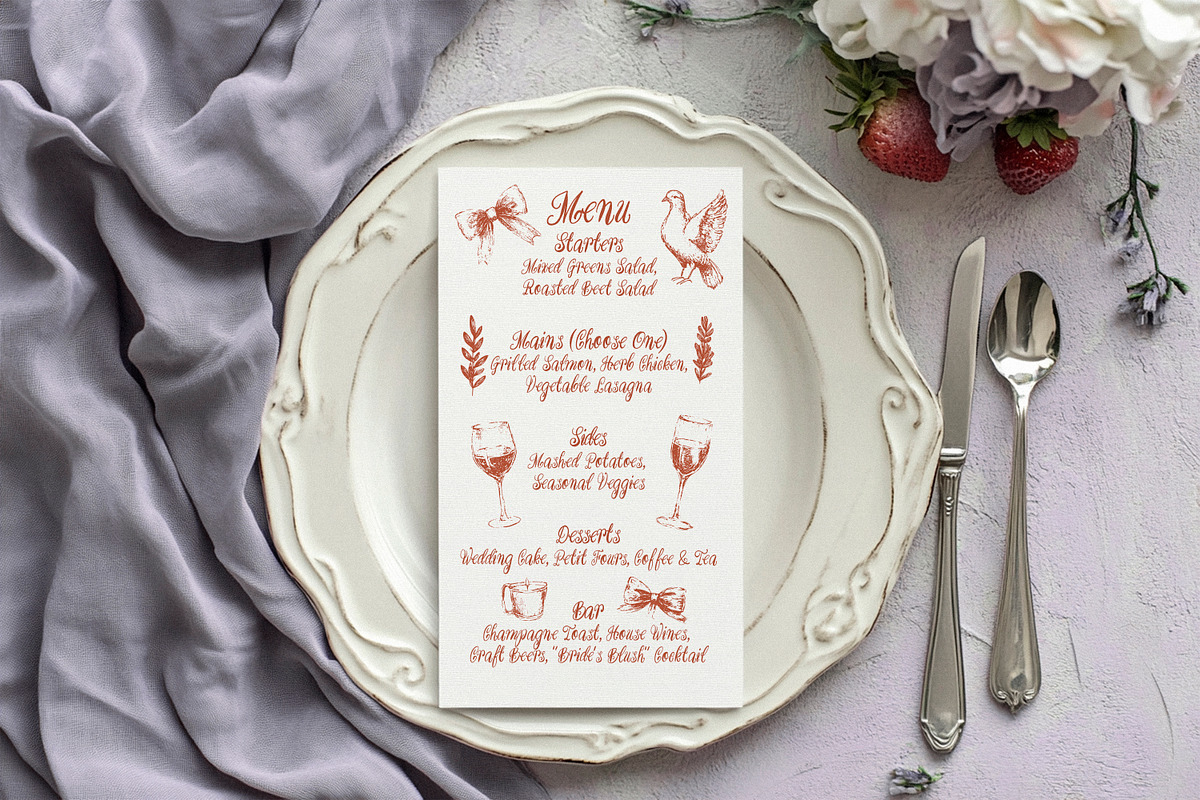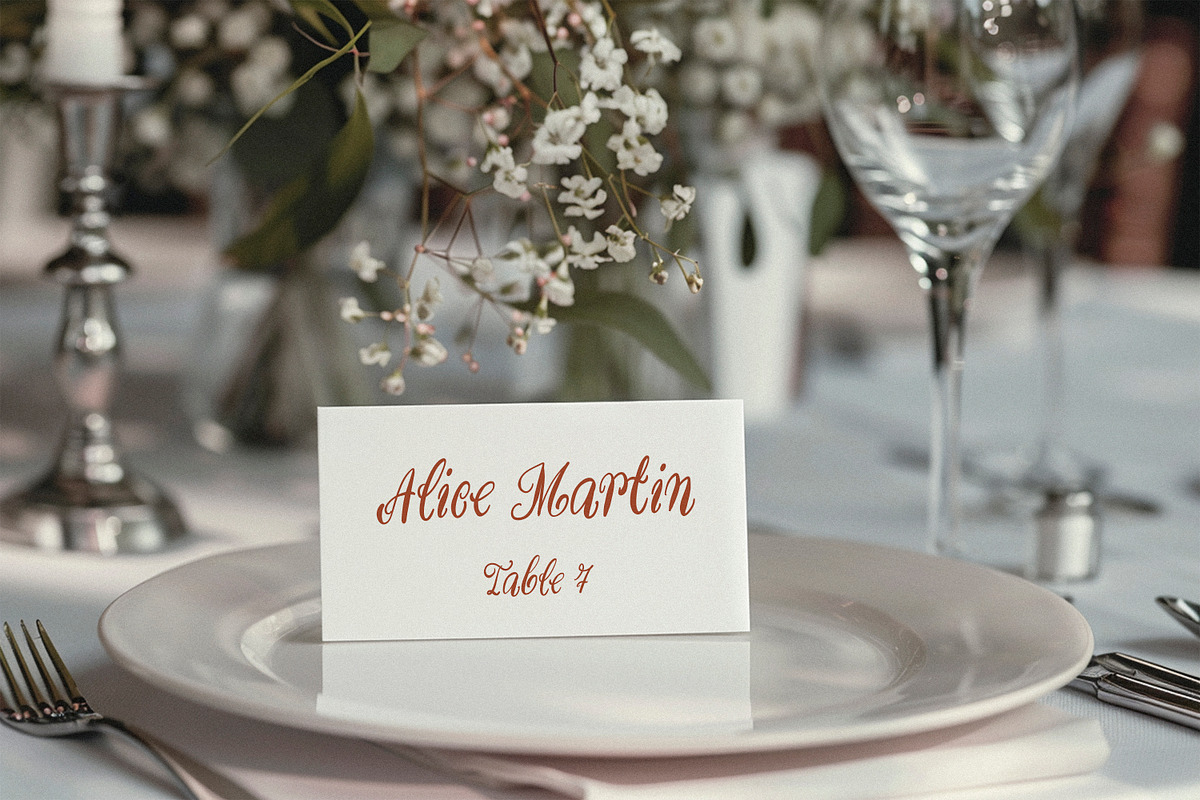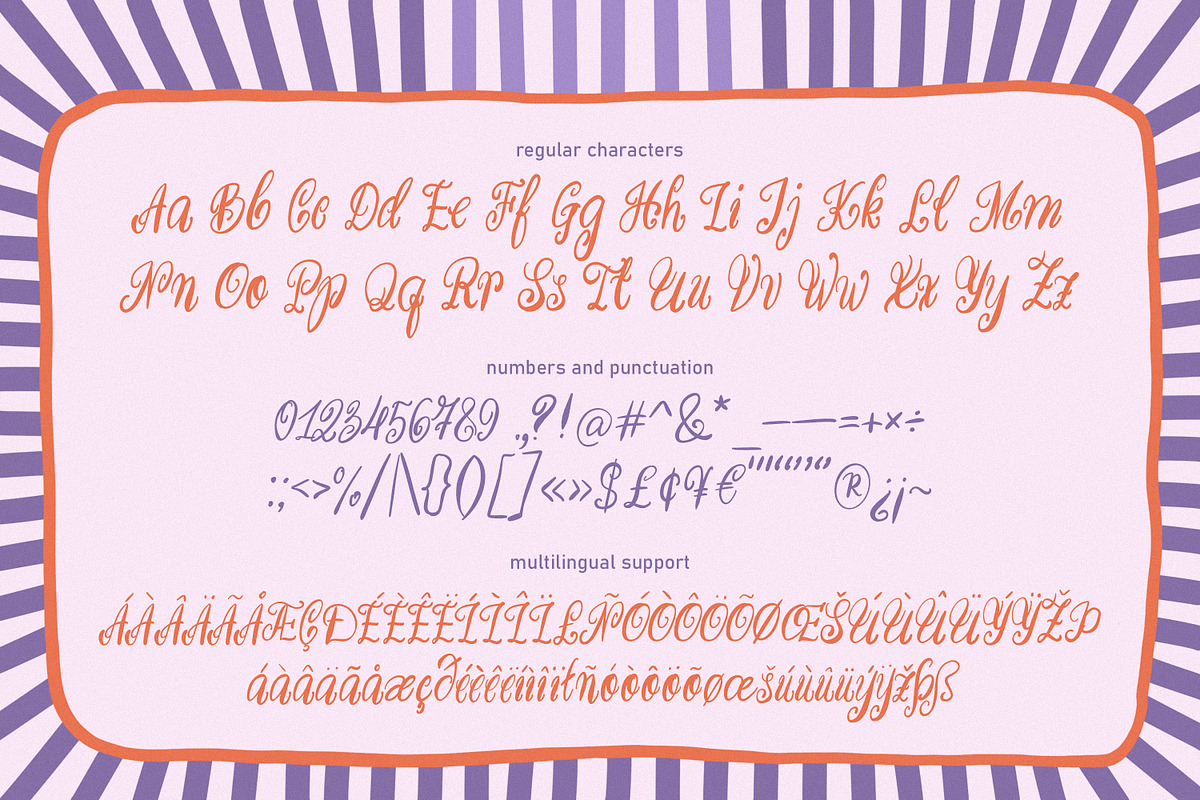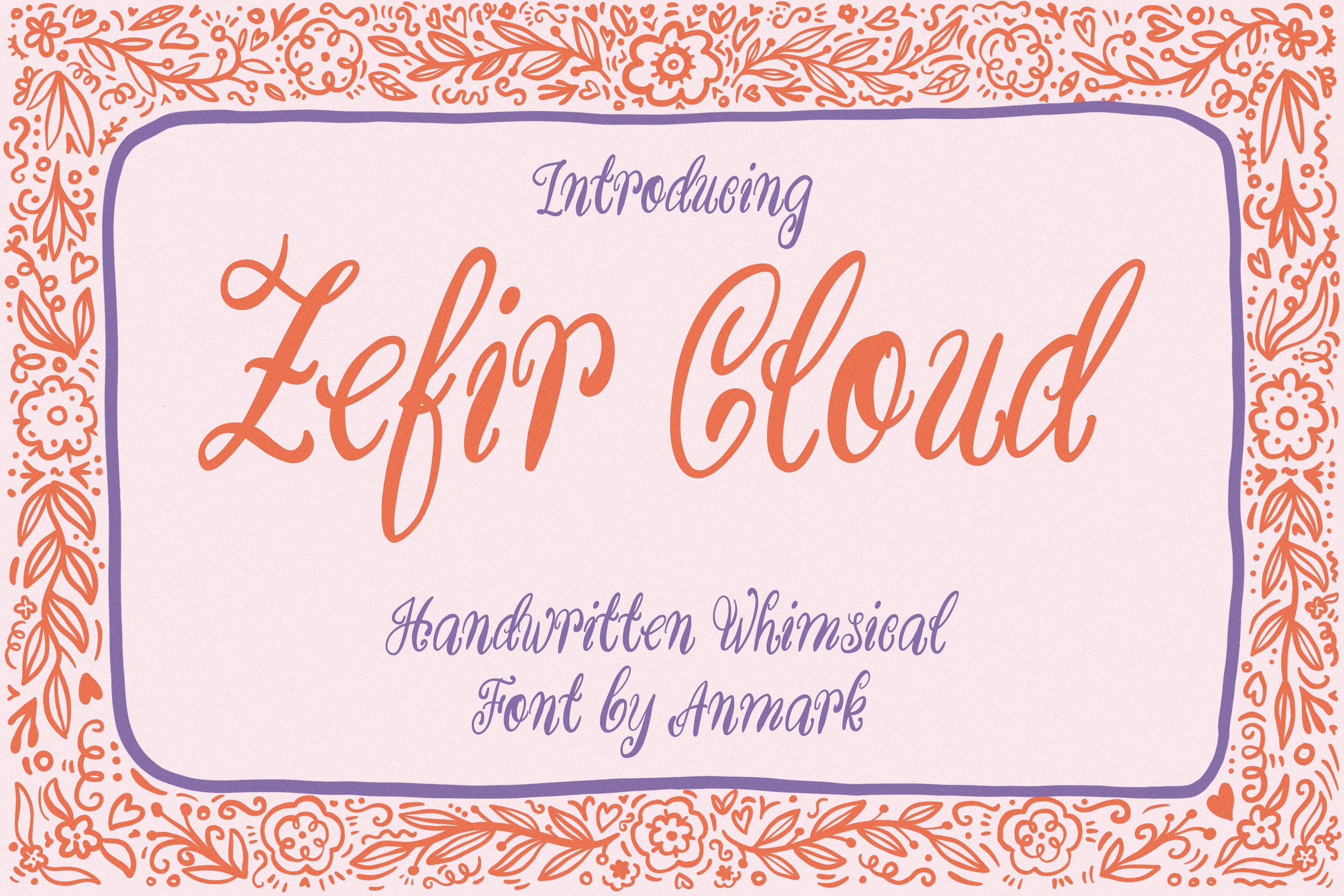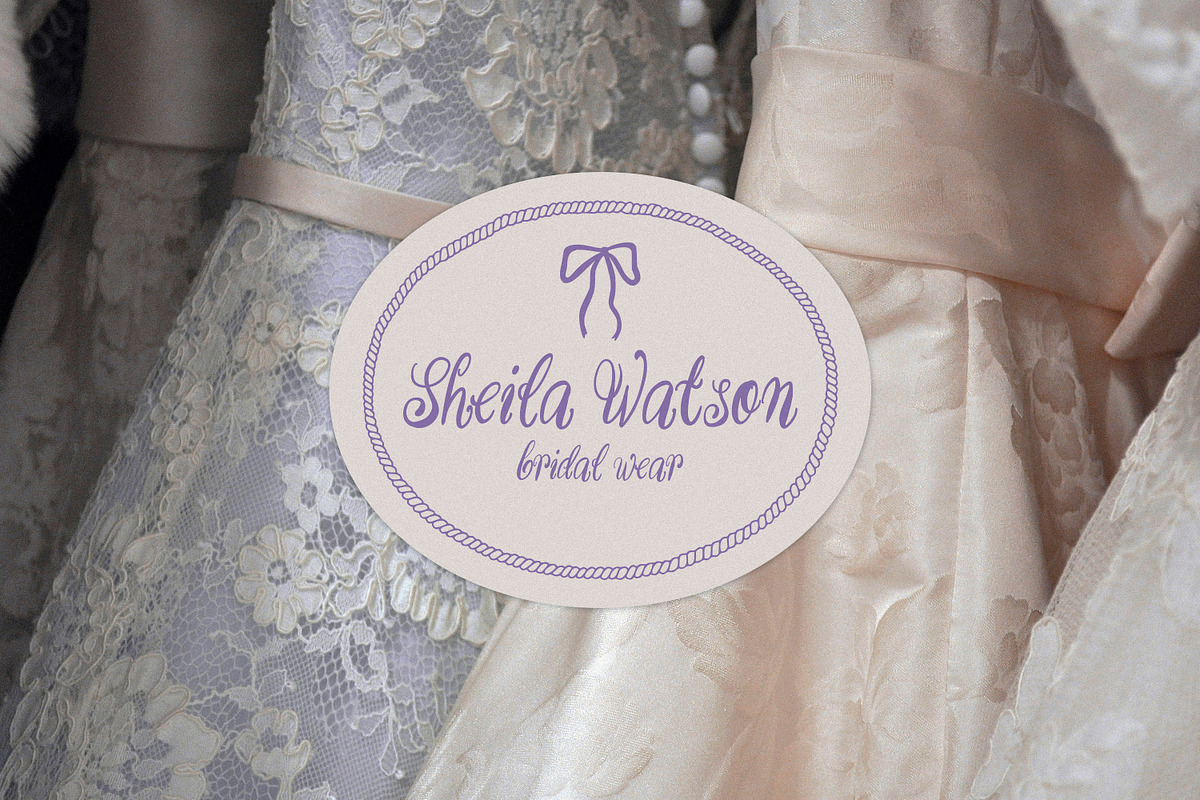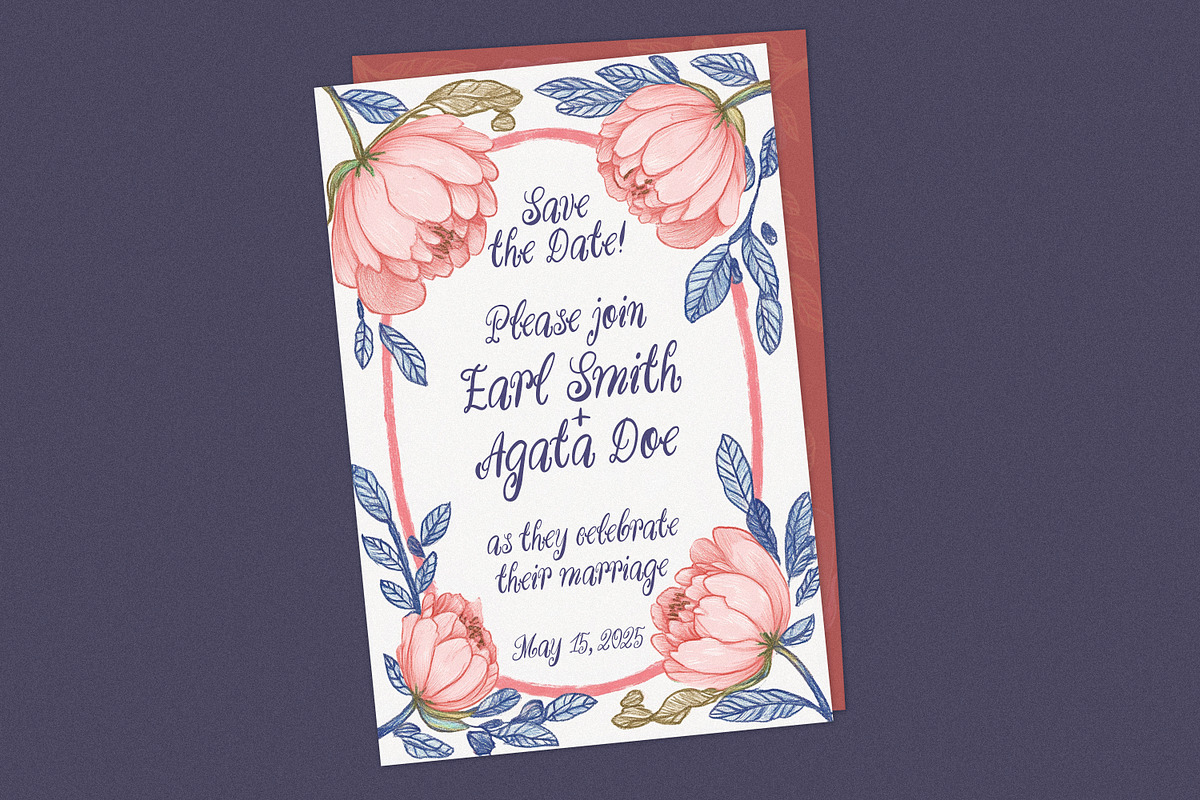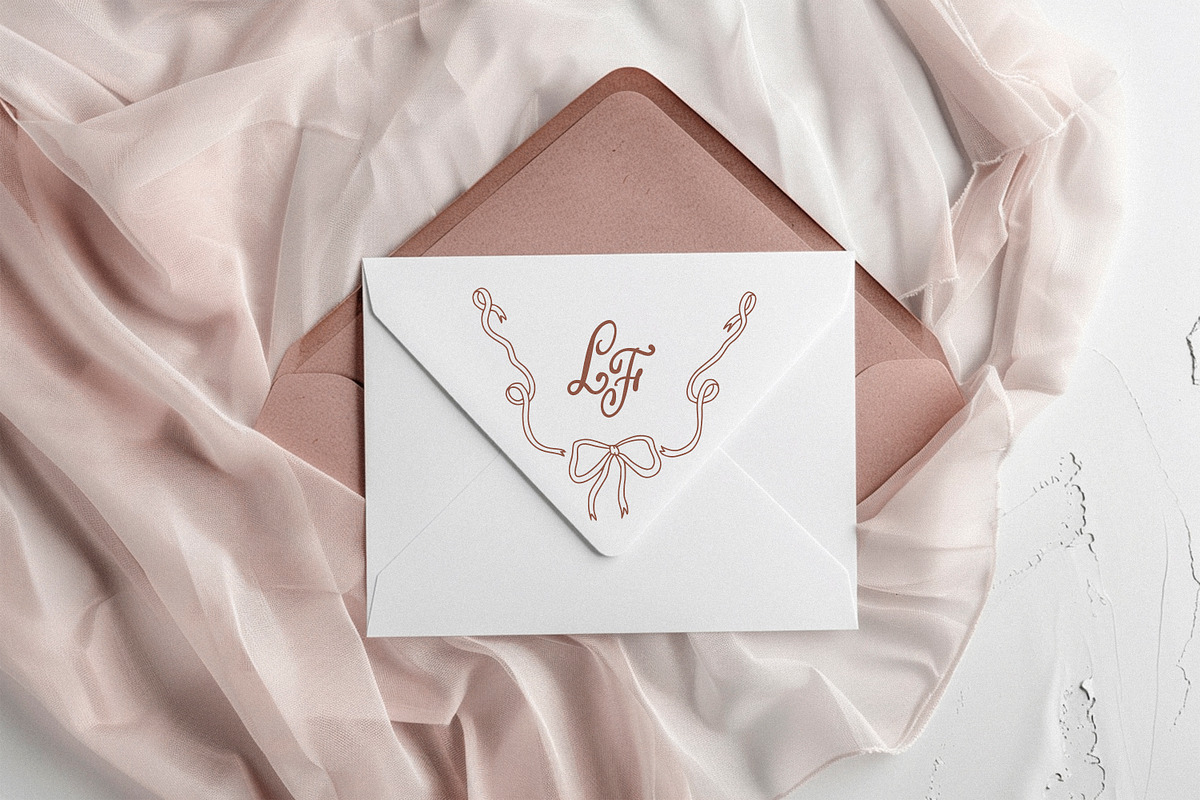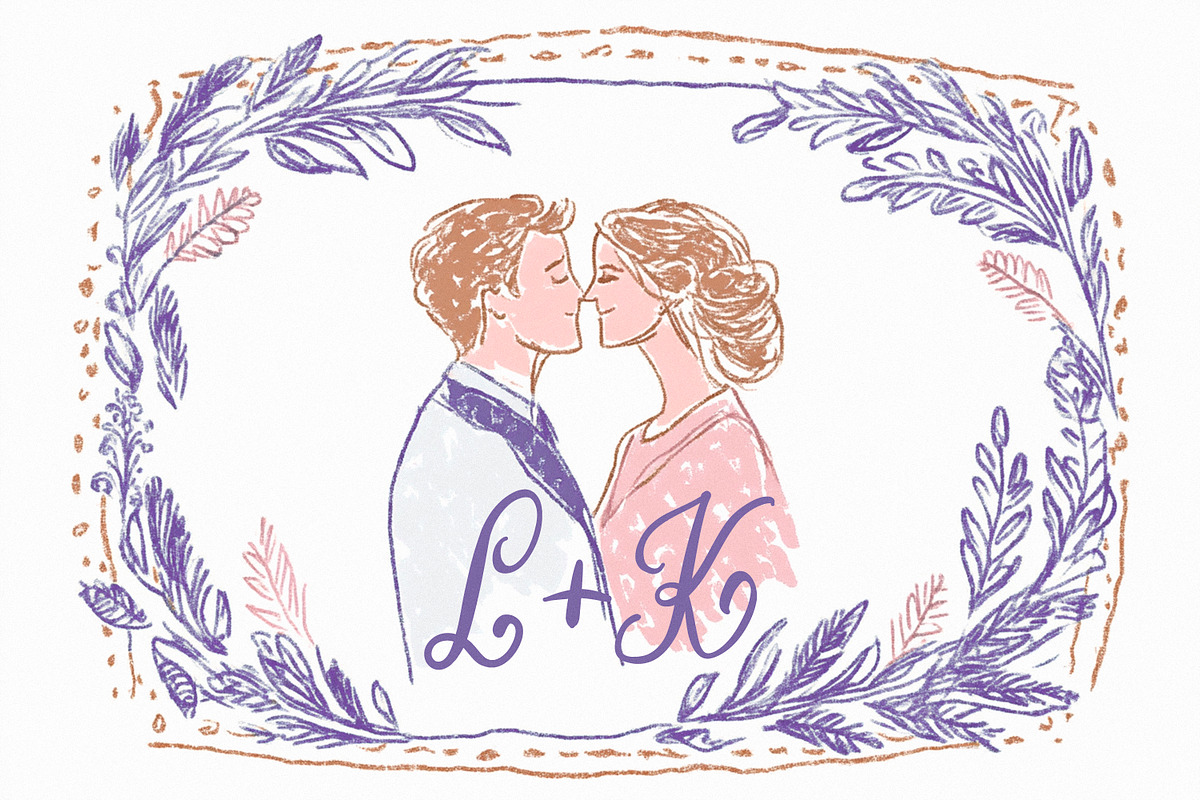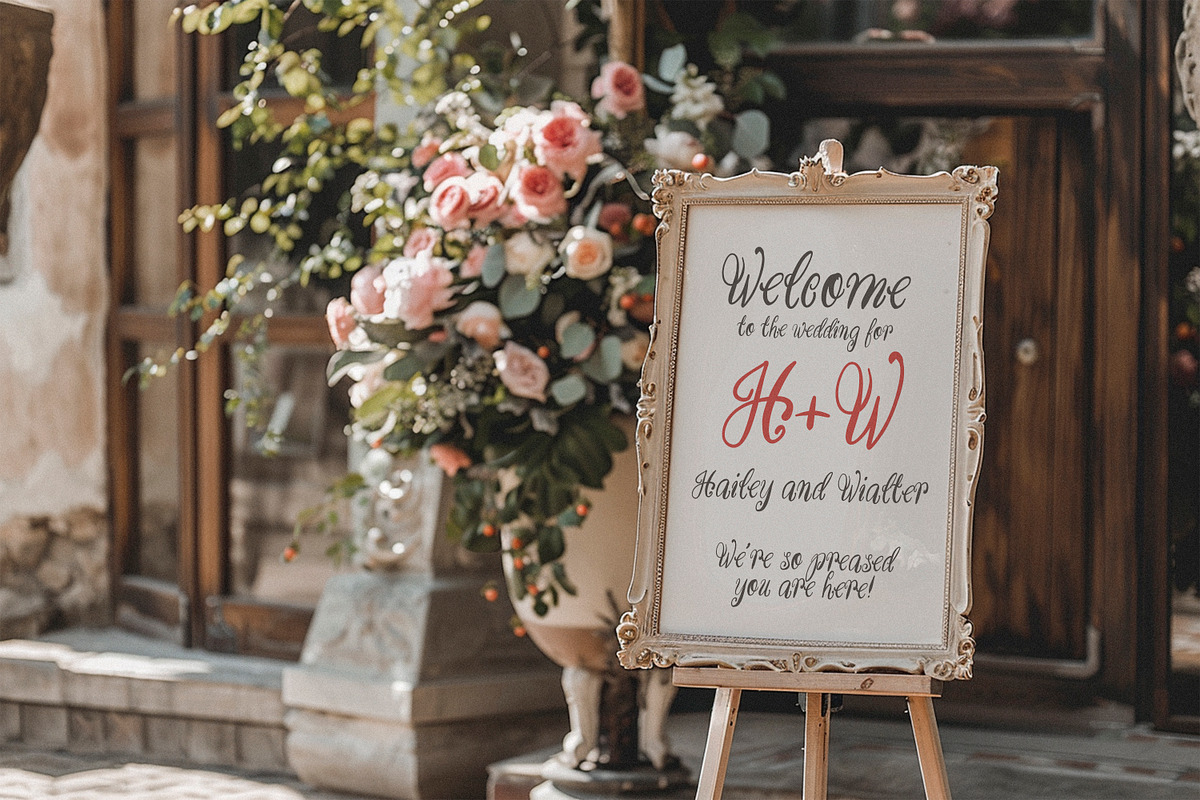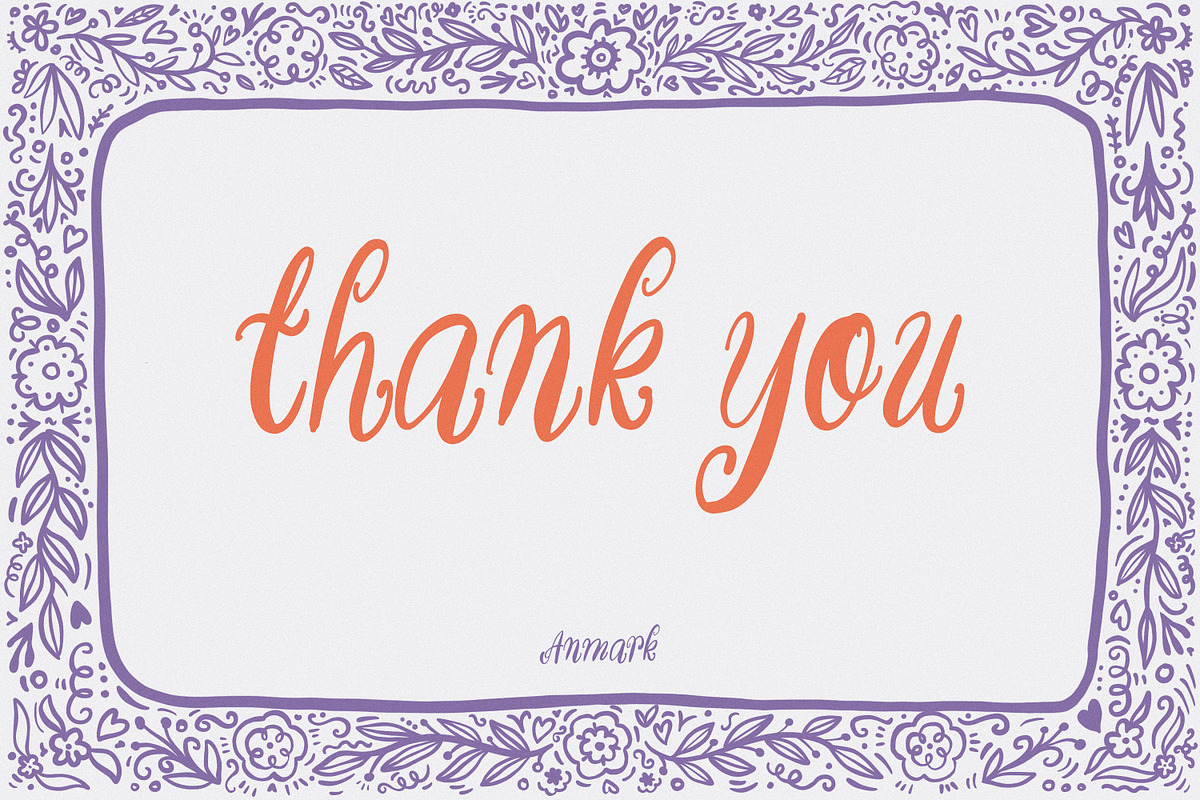
Zefir Cloud Whimsical Wedding Font
Zefir Cloud is a charming, curly font perfect for all your whimsical wedding stationery needs. With its playful swirls and elegant flourishes, this typeface exudes a sense of romance and enchantment. Whether you're designing save-the-dates, invitations, menus, or signage, Zefir Cloud will lend a touch of effortless sophistication to your wedding paperie.
This swirls font features a beautiful blend of cursive styles, creating a signature look that is both formal and informal. The varied line weights and organic shapes give the font a handcrafted feel, adding to the overall charm and character. Zefir Cloud is highly versatile, pairing beautifully with a wide range of design elements and color palettes.
Unlock the full potential of Zefir Cloud by taking advantage of its character set, including uppercase and lowercase letters, numbers, punctuation, and multilungual support. This font is perfect for crafting elegant wedding stationery, personalized wedding signage, custom logos, and so much more. Elevate your design projects with the enchanting allure of Zefir Cloud.